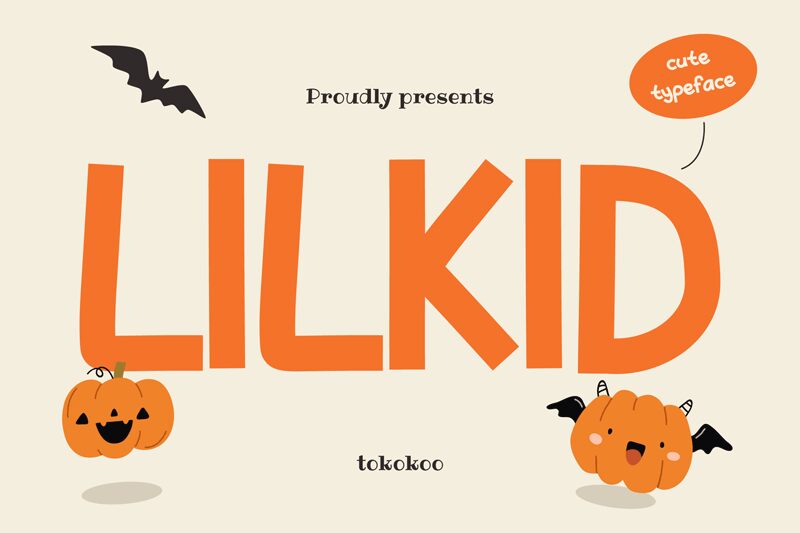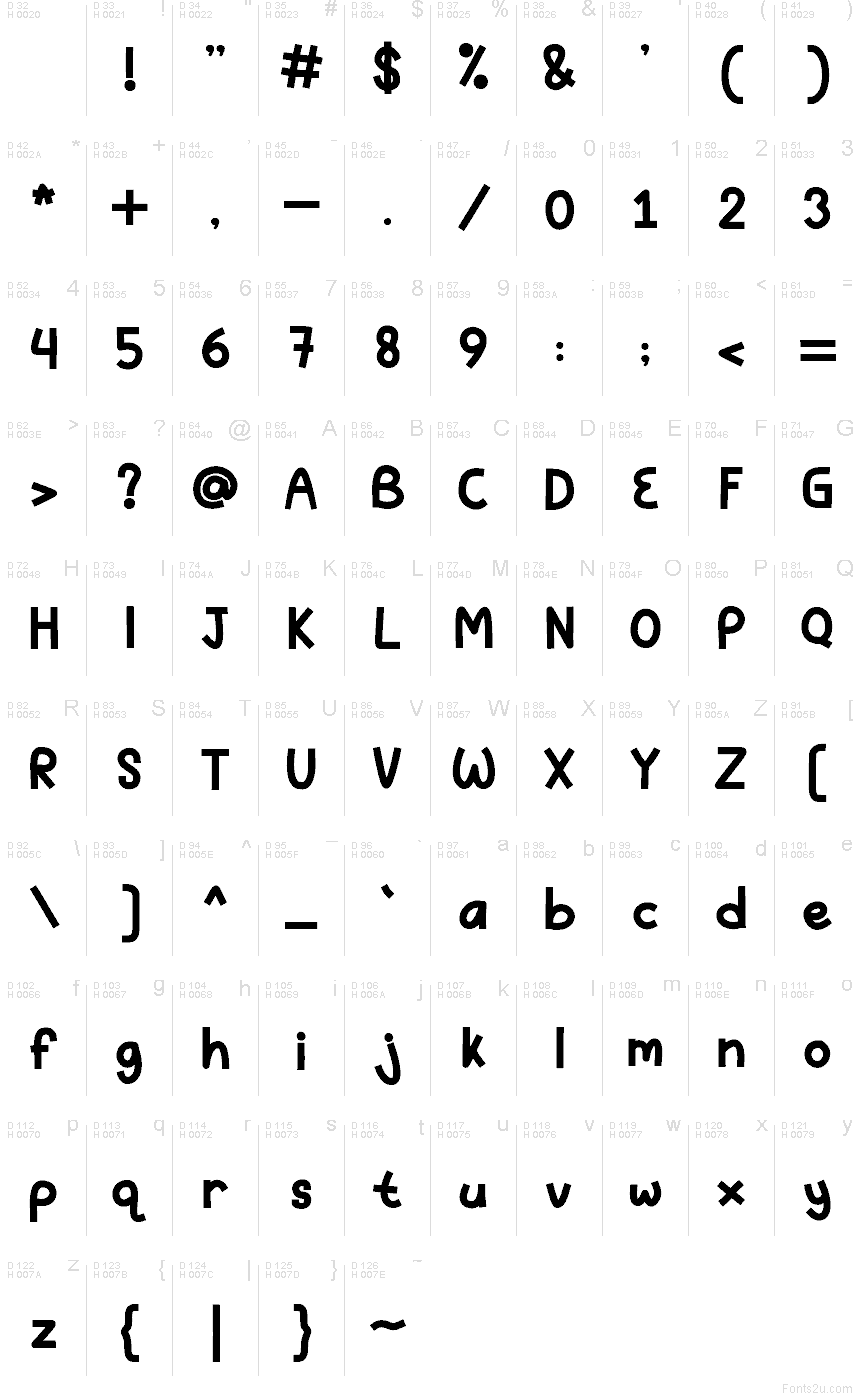
LILKID
Lilkid font by Tokokoo Studio is a free cartoon display typeface with chunky, upright letters that feel bold, bouncy, and a little mischievous. The wide stance and gently rounded corners give it a sturdy, toy-like presence, while the tight rhythm keeps words looking punchy and compact. It reads quickly at a glance, so even short headlines snap into place like colorful building blocks.
Using Lilkid, this free font shines on kids’ book covers, birthday invitations, toy packaging, classroom posters, YouTube thumbnails, and playful app interfaces. Its solid, inky strokes hold up beautifully at large sizes on banners and signage, where you want a big friendly shout, not a whisper. Pair Lilkid with a simple rounded sans serif for body text to keep your layouts fun but easy to read.